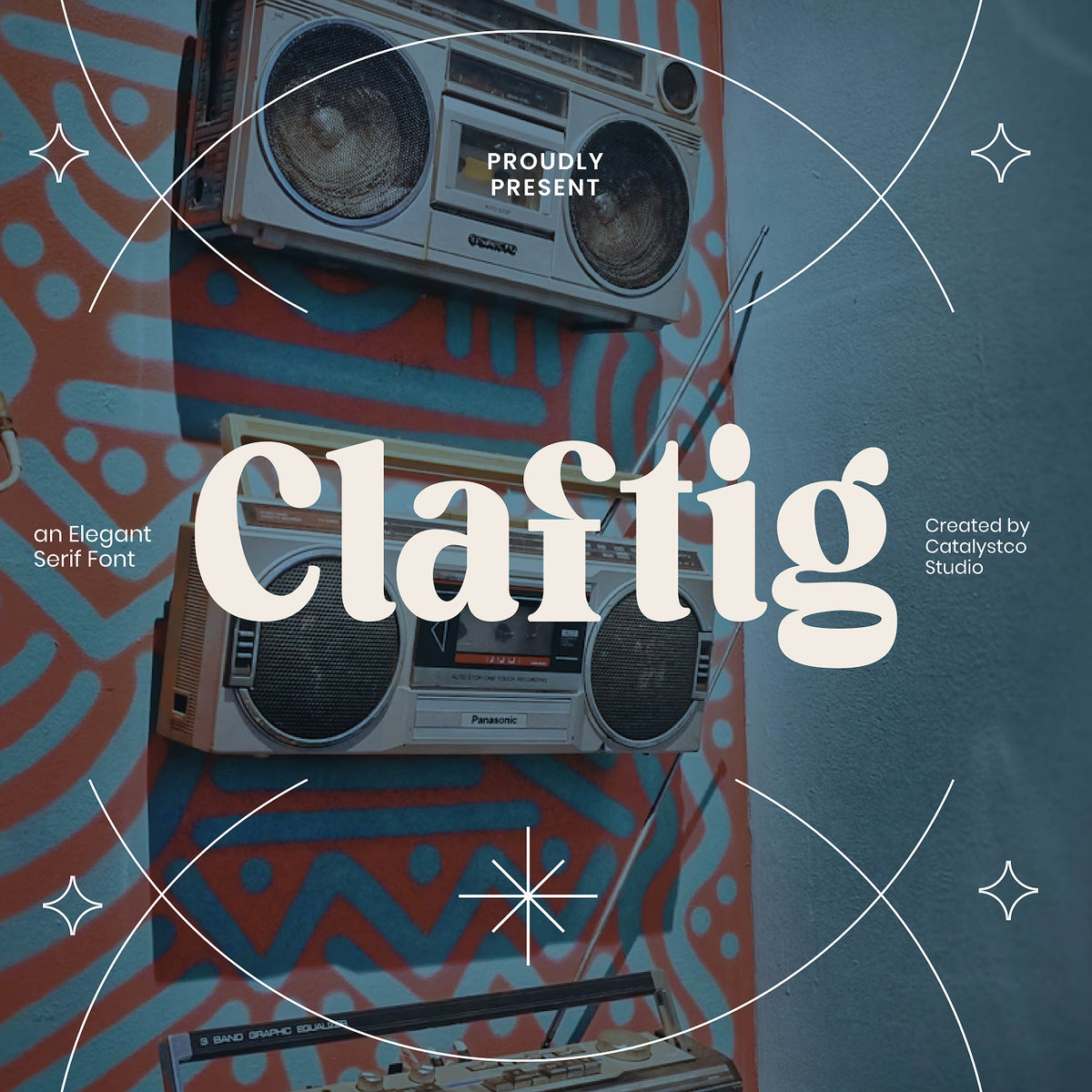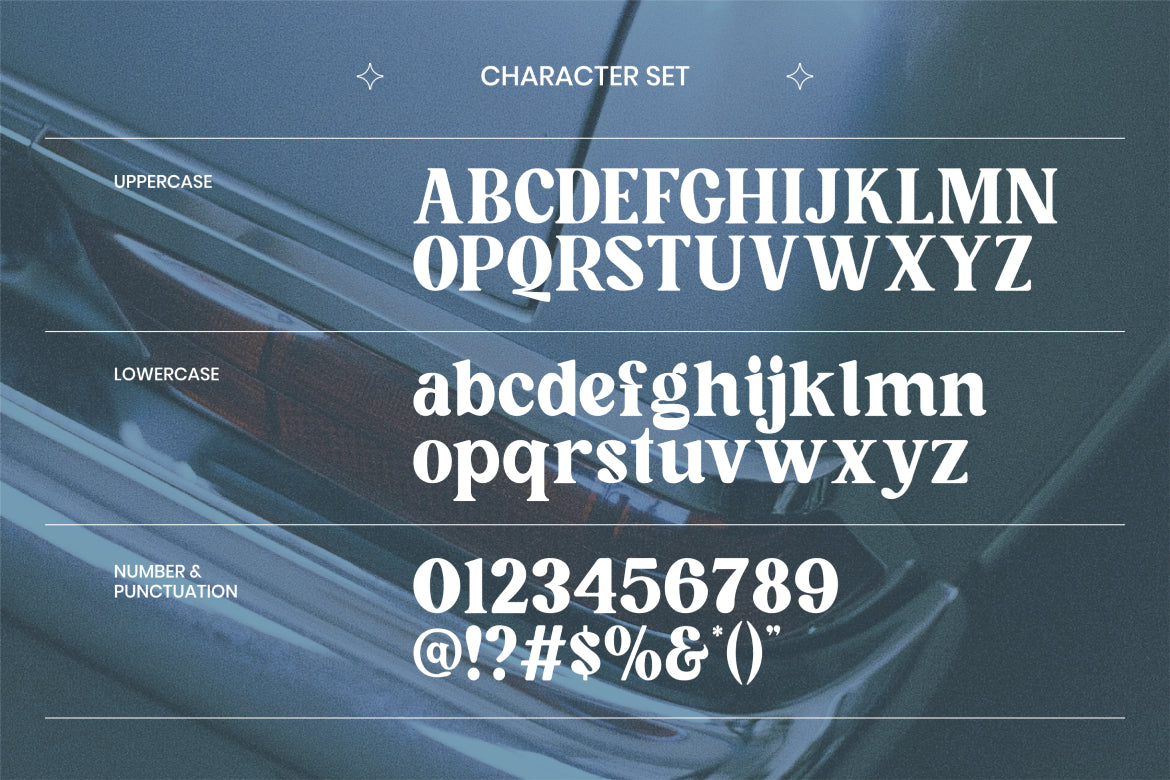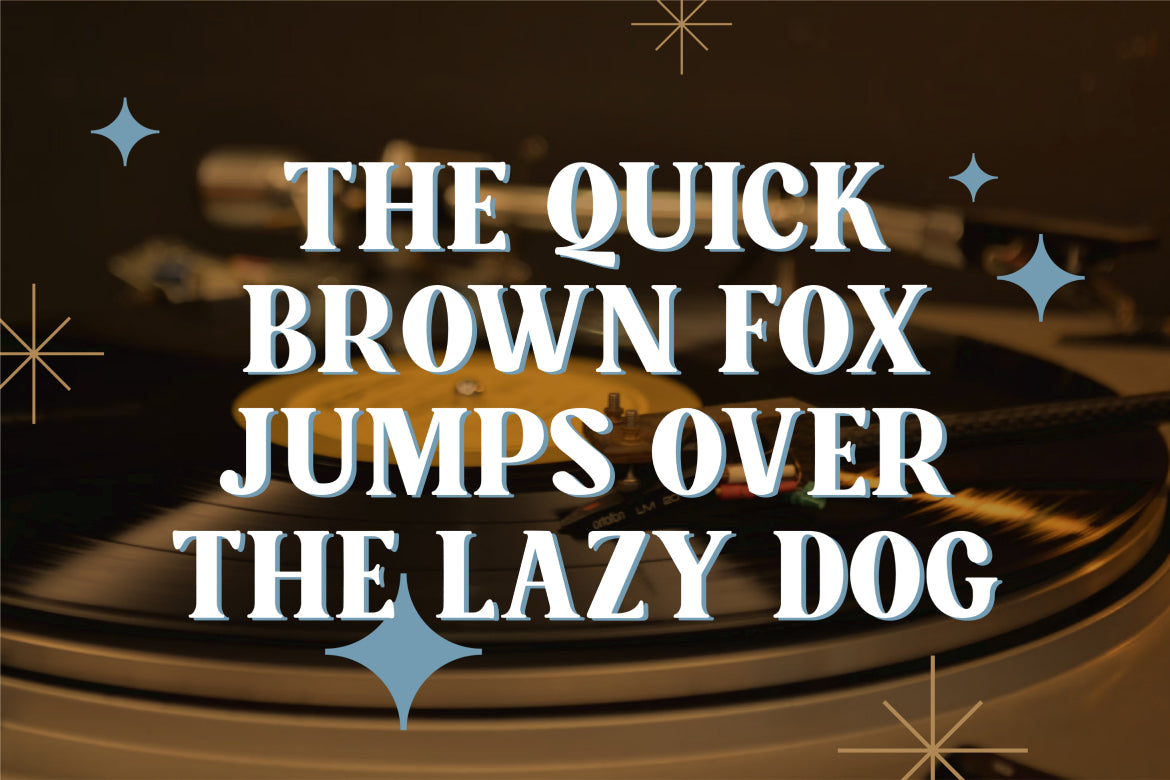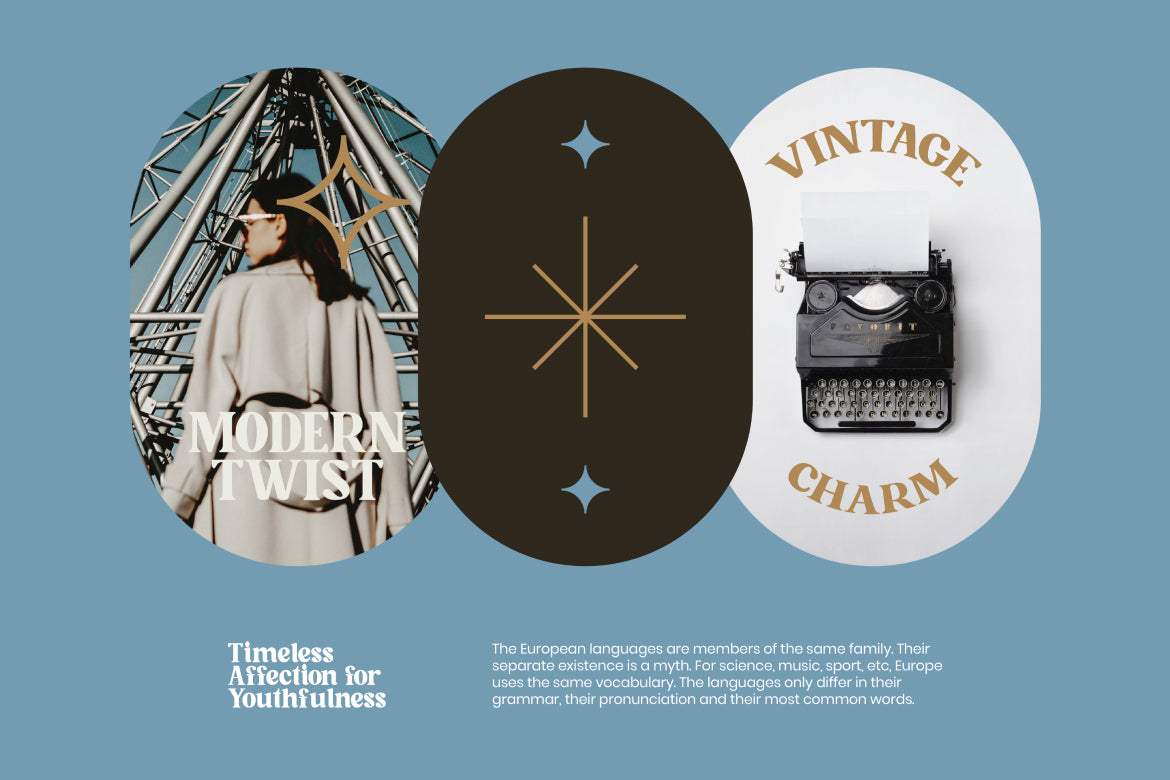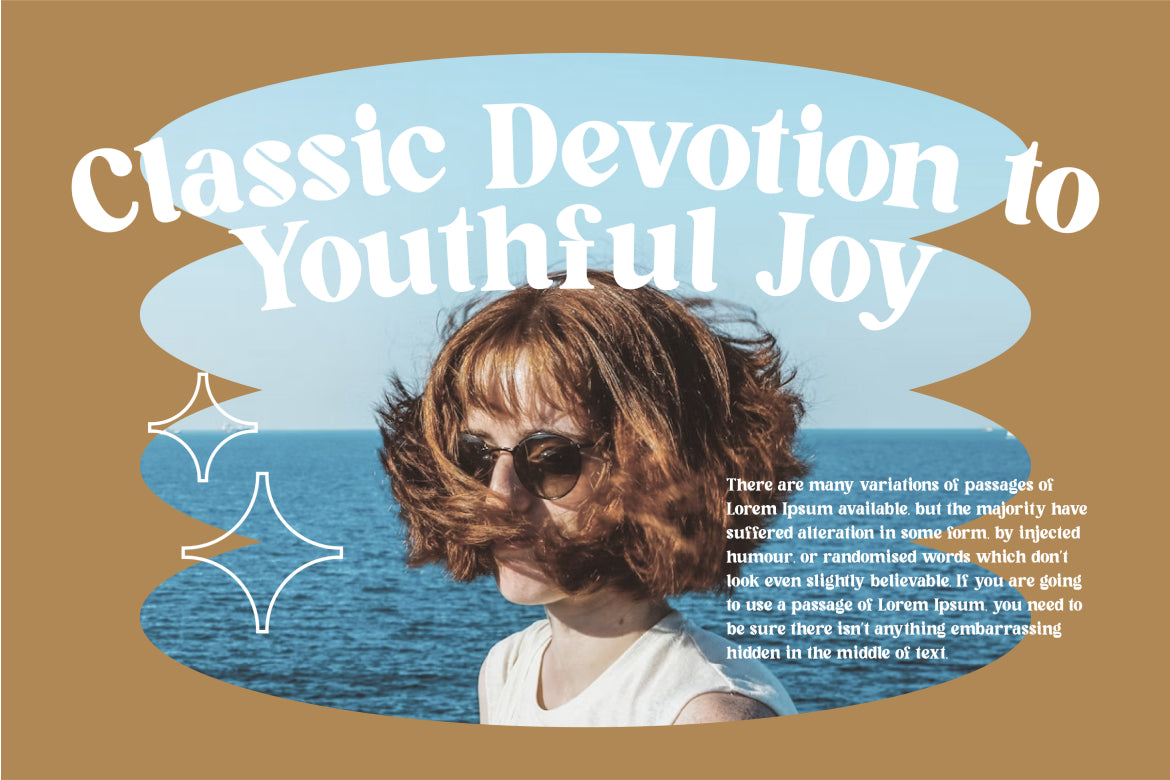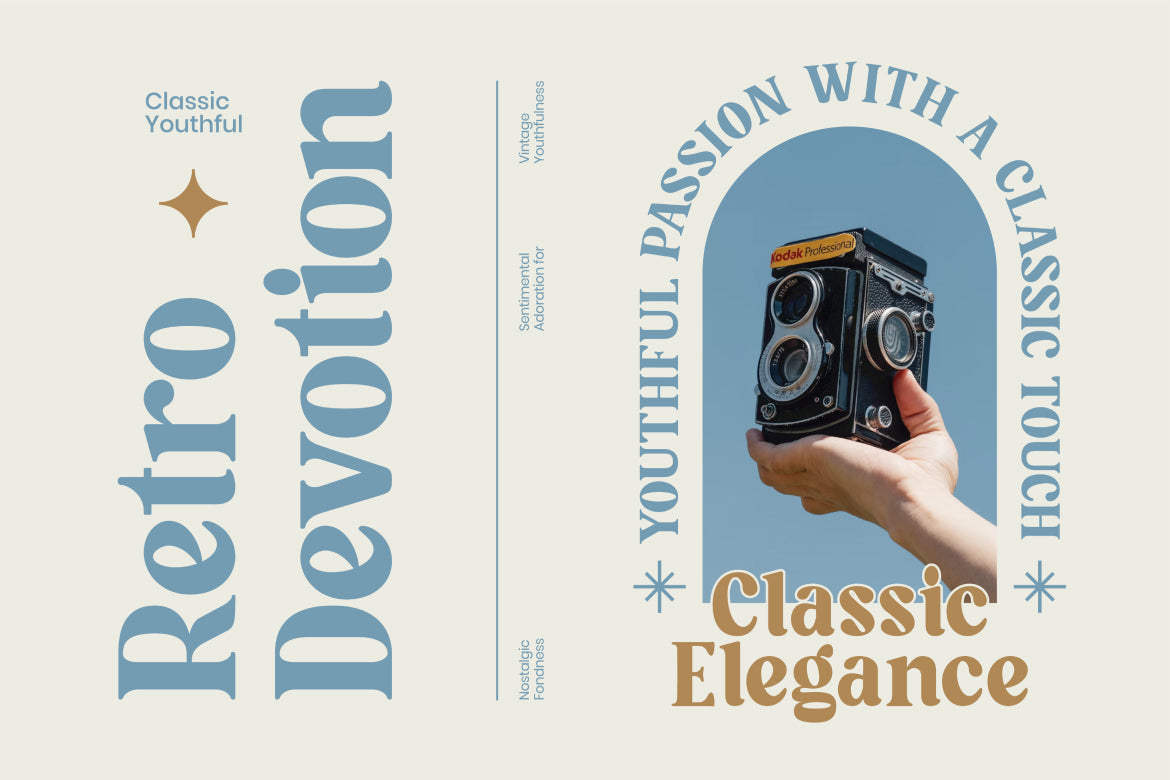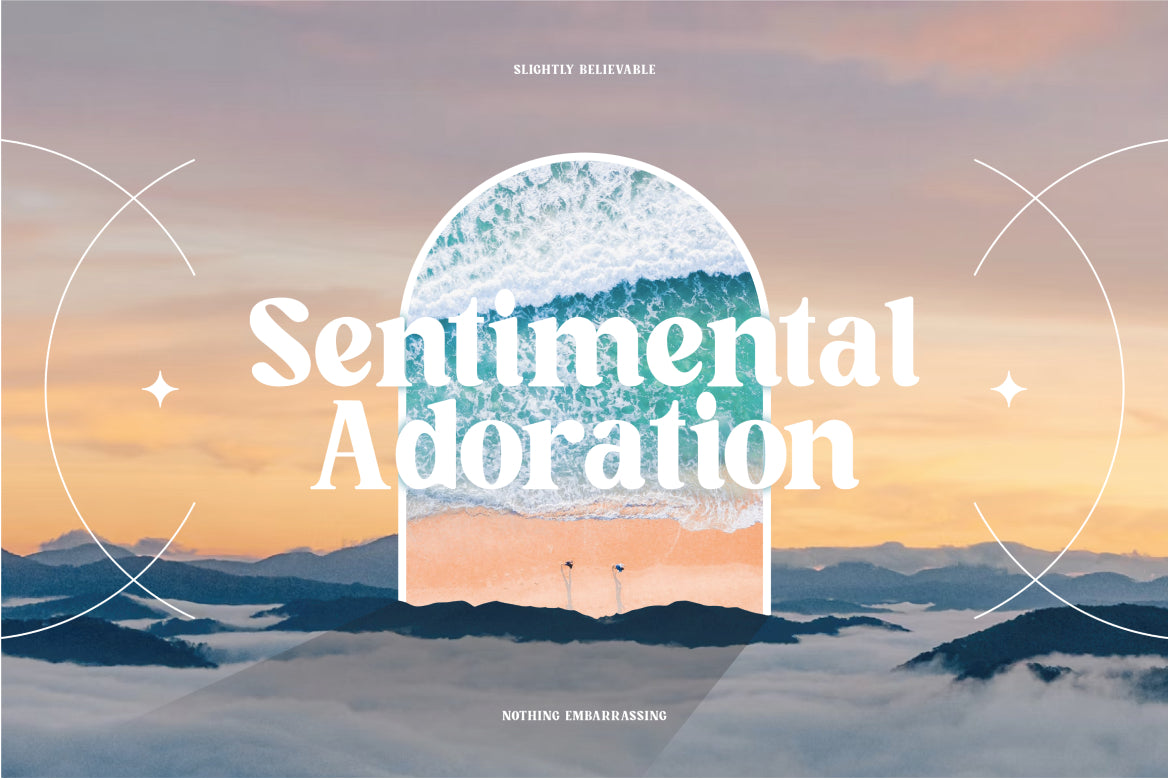
Claftig Elegant Serif Font
Claftig is an elegant serif display font that blends refined curves with expressive, high-contrast shapes. Its sculpted serifs and distinctive terminals create a sophisticated character that stands out in modern editorial layouts, branding, and high-impact headlines. Designed with balanced proportions and smooth contours, the font delivers both readability and visual presence. Perfect for designers seeking a stylish serif display with a contemporary artistic feel.
Relevance and Use Cases is perfect for editorial layouts, magazine headlines, modern branding projects, elegant product packaging, creative posters, logo design, digital visuals, and any project that requires a stylish serif with strong visual character.
Claftig is a serif display font featuring high-contrast shapes, sculpted serifs, and distinctive terminals. It includes uppercase and lowercase characters, ligatures and alternates, numerals, punctuation, and multilingual support in TTF, OTF, and WOFF formats.